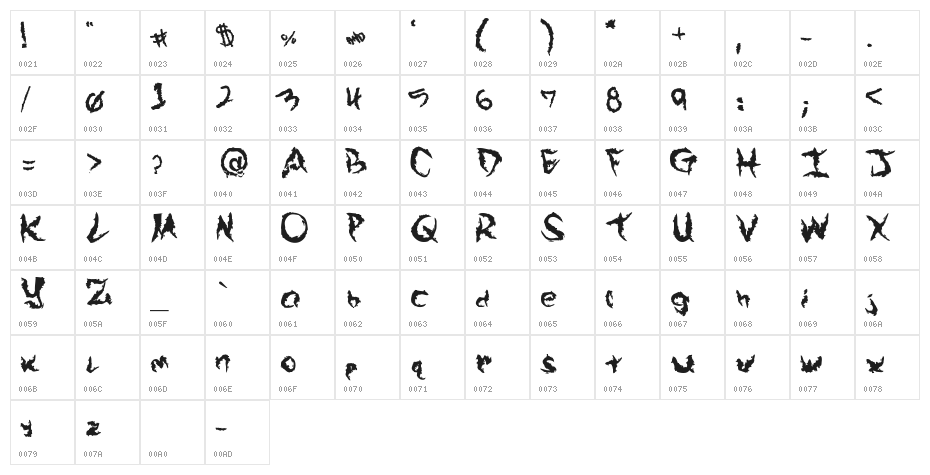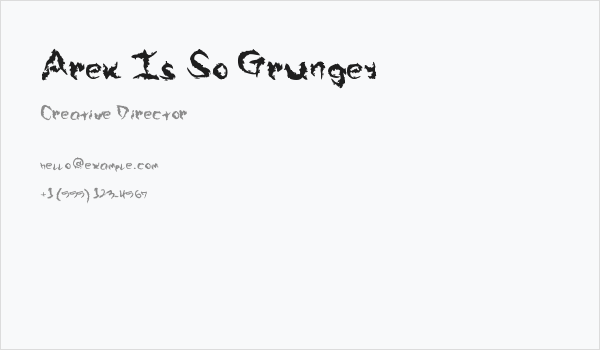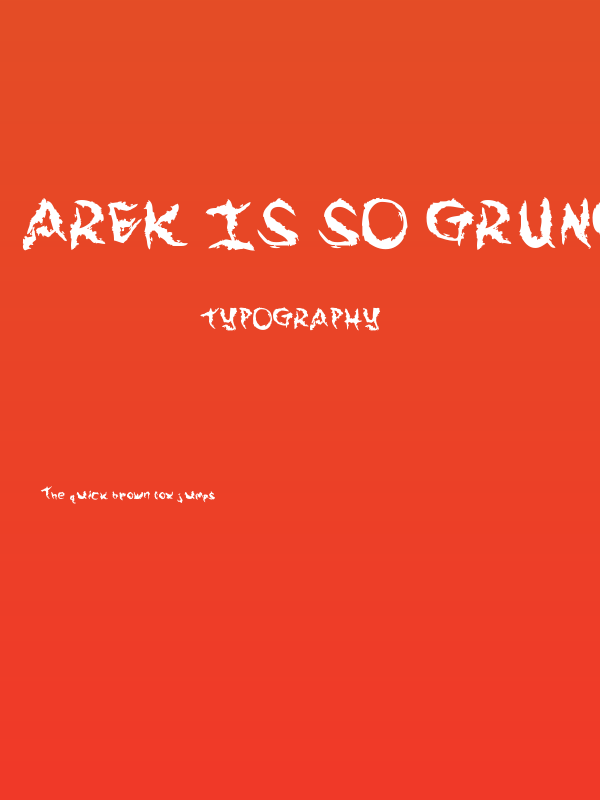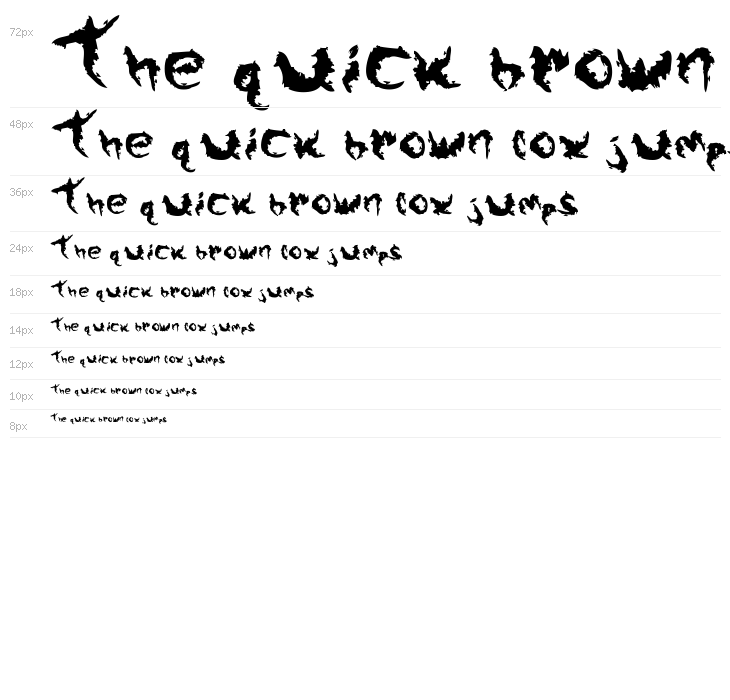
Arek Is So Grungey Font
Arek Is So Grungey Description
This font exudes a rugged, distressed aesthetic, reminiscent of grunge and punk styles. The characters are irregular and jagged, with rough edges that give a sense of raw energy and rebellion. Each letter appears as if it has been torn or eroded, creating a chaotic yet artistic appearance. The uppercase and lowercase letters maintain a consistent style, with the same rough texture applied throughout. Numbers and special characters follow suit, contributing to the overall edgy and unconventional look. This font is perfect for designs that aim to capture an alternative, rebellious spirit.
| Overall Style | Grunge, Punk, Alternative |
| Use Case | Headlines, Posters, Album covers |
| Proposed Projects | Ideal for album covers, posters, and apparel designs that seek a rebellious or alternative aesthetic. |